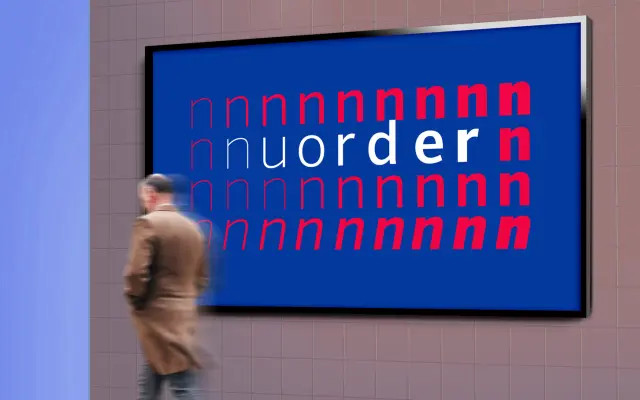
A nine-weight humanist sans with matching italics, drawing on natural stroke paths for approachable legibility across digital and print contexts.
NuOrder pairs geometric structure with humanist warmth through a natural stroke path that nods to handwriting fluidity. Nine weights from Thin to Black each carry a matching italic, giving the family 18 fonts in total, with over 550 characters per style and OpenType features covering five numeral variants, alternate lowercase a and g, and European language support. Remastered to version 2.0, it suits interface design, editorial work and brand communications where clean legibility and a degree of personality are both required.
The foundry describes a balance of clean geometric lines with humanist elements and a natural stroke path mimicking handwriting fluidity, placing it firmly in the humanist sans-serif category with minimal stroke contrast.